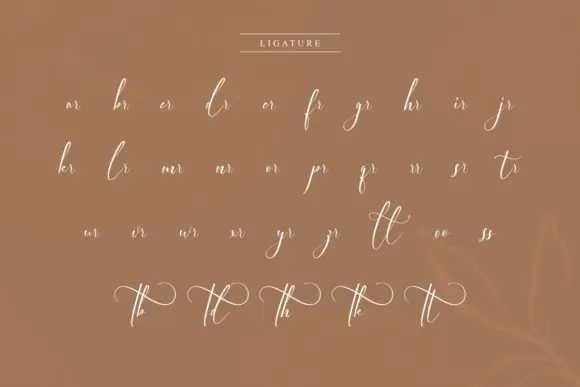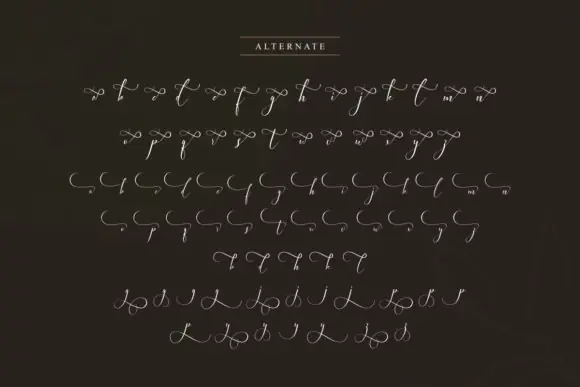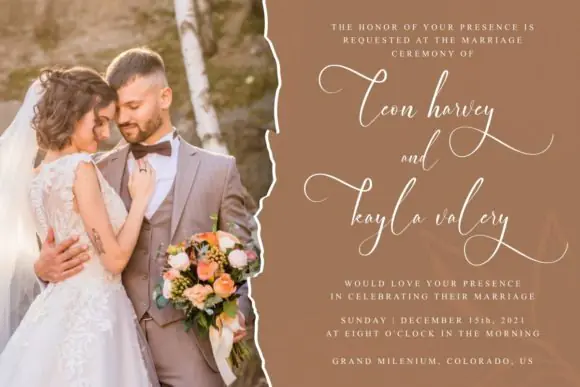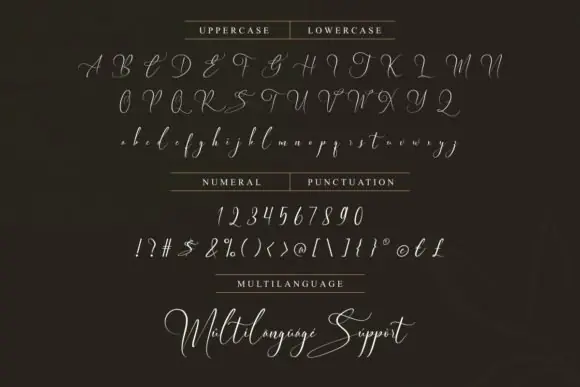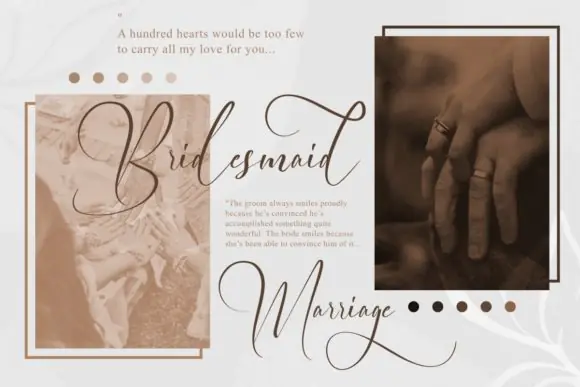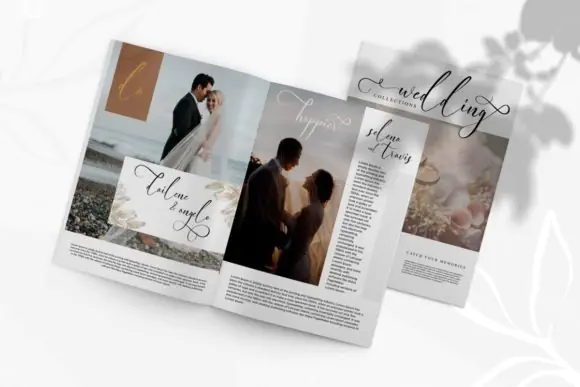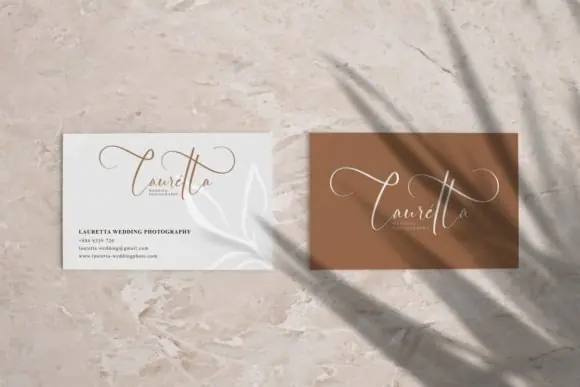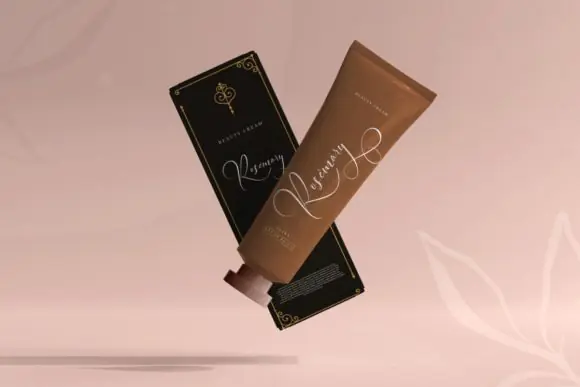
Elegant Wedding Font | Delicate Fashionable Script Font with Swashes for Logos, Branding, T-Shirts, Invitations & Creative Designs
Create graceful, stylish, and premium-looking designs with Elegant Wedding Font, a delicate and fashionable script font made for beautiful branding and creative projects. This font has a soft handwritten flow that adds elegance, charm, and a refined romantic touch to your typography.
Elegant Wedding Font is perfect for logos, wedding invitations, save-the-date cards, thank you cards, greeting cards, t-shirt printing, mugs, stickers, product packaging, business cards, social media graphics, printable wall art, stationery, and many other creative products.
This font is especially useful for designers, crafters, wedding stationery creators, small business owners, and digital product sellers who want to create polished and eye-catching designs with a fashionable script style. It is also PUA encoded, which means you can easily access all glyphs and swashes to make your lettering more decorative and personalized.
• Wedding invitations
• Save-the-date cards
• Thank you cards
• Greeting cards
• Logos and branding
• T-shirt printing
• Mug and sticker designs
• Product packaging
• Business cards
• Printable wall art
• Stationery designs
• Cricut and Silhouette projects
• Elegant creative products
• Delicate fashionable script style
• Elegant handwritten appearance
• Great for logos, branding, and wedding designs
• Perfect for t-shirt printing and creative products
• Suitable for both print and digital projects
• Adds a refined and graceful touch to any design
Elegant Wedding Font is a beautiful choice for creating romantic, stylish, and professional designs with a delicate script look and timeless wedding-inspired charm.